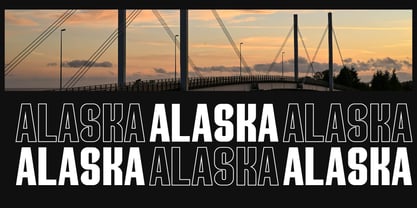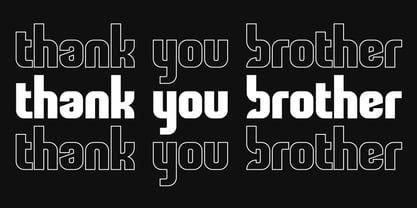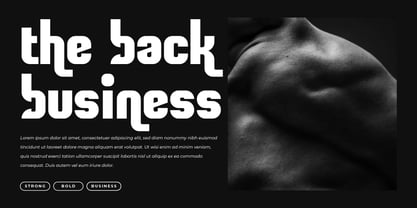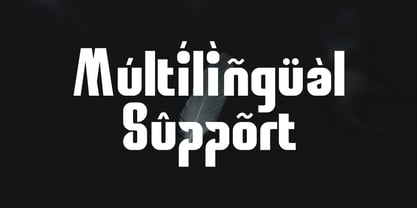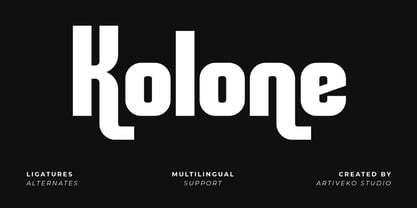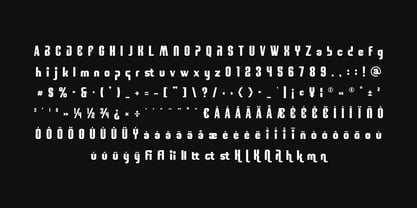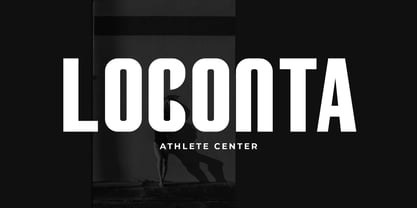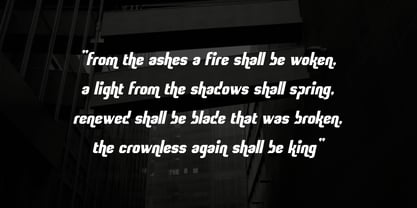
Kolone
Die Schriftfamilie Kolone wurde von Iwan Alwan entworfen und von Artiveko veröffentlicht. Kolone enthält 2 Stile und Familienpaketoptionen. Mehr über diese Familie
Kolone is a modern and expressive sans serif font designed to bring creativity and clarity together in one versatile typeface. With its balanced proportions, clean strokes, and subtle distinctive details, Kolone delivers a fresh contemporary look that works perfectly across a wide range of design applications. Ideal for branding, logos, posters, editorial layouts, packaging, websites, and social media graphics, Kolone offers a professional yet creative personality. Its well-crafted letterforms ensure strong readability while still providing a unique visual character that helps designs stand out. The font includes uppercase and lowercase letters, numerals, punctuation, multilingual support, and stylistic alternates, giving designers the flexibility to create consistent and expressive typography systems. Upgrade your visual identity with Kolone — a creative sans serif font built for modern design, flexibility, and impactful communication.
Designer: Iwan Alwan
Artiveko is a font design team based in Indonesia, comprised of several talented font designers who commenced their careers in the font design industry in 2020. With a dedicated focus on crafting fonts, the team members bring their collective expertise and passion to every project they undertake. Situated in Indonesia, Artiveko draws inspiration from the vibrant cultural landscape of the region, infusing their creations with unique flavors and aesthetics.The team's font collection encompasses a diverse range of styles, including serif, sans serif, handwritten, and script typefaces. Each typeface is meticulously crafted to meet the demands of modern design while offering versatility and functionality across various applications. Whether it's the classic elegance of serif fonts, the contemporary appeal of sans serif designs, the personal touch of handwritten scripts, or the expressive flourishes of script fonts, Artiveko ensures that every font reflects their dedication to quality and innovation.Artiveko's fonts have garnered recognition and acclaim, with their works being featured on prominent social media platforms like Creative Market. Through these platforms, the team has been able to connect with a global audience of designers and typographers, further amplifying their reach and influence in the industry. Their fonts are celebrated for their impeccable craftsmanship, attention to detail, and ability to elevate design projects with style and sophistication.As Artiveko continues to evolve and expand its font collection, the team remains committed to pushing the boundaries of typography and setting new standards of excellence. With a relentless focus on creativity, innovation, and collaboration, Artiveko strives to inspire and empower designers around the world with their distinctive and versatile font designs.